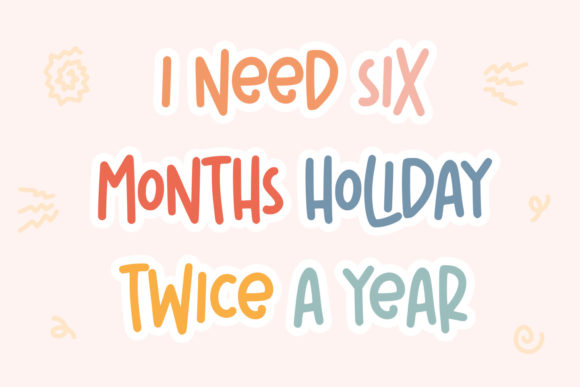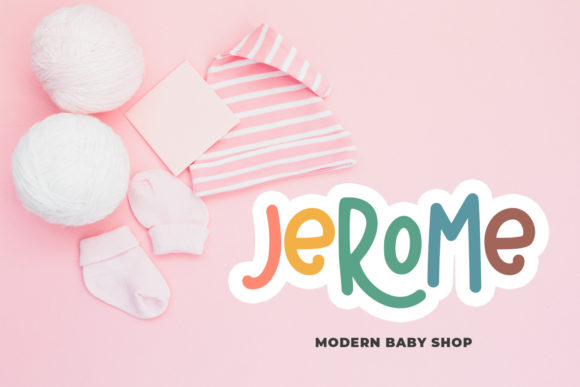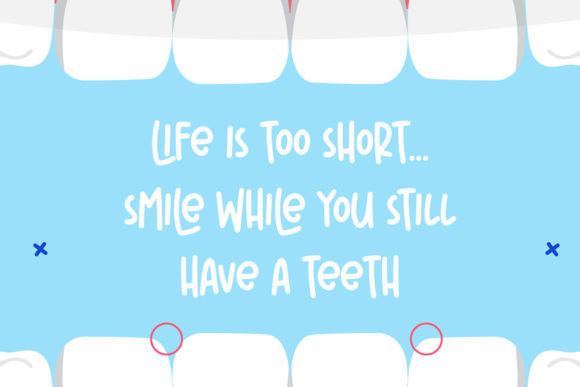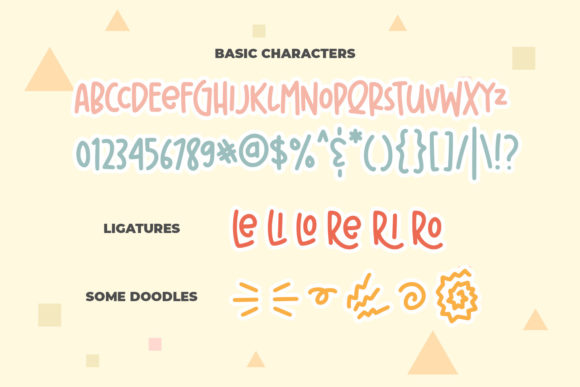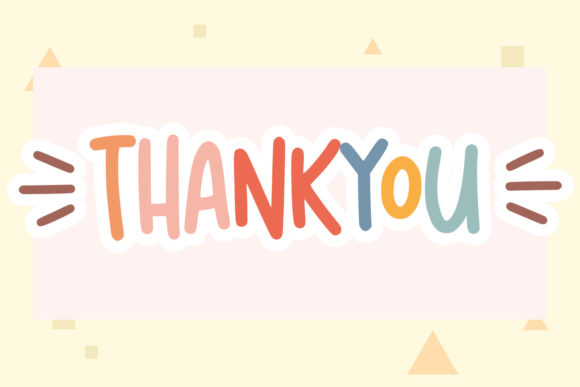
Do you remember the moment when you stumbled upon the perfect font to match your latest design idea? It’s that ‘aha’ moment when everything falls into place, and your creativity soars. For designers, finding the right font can make all the difference between a good design and a great one. And that’s exactly what the Brownist Font is designed to do – add a touch of whimsy and charm to your projects.
Brownist Font is a delightful, cheerful font that’s perfect for a wide range of applications, from t-shirt designs and quotes to mugs, tote bags, and social media graphics. Its versatility and playfulness make it an invaluable asset for designers looking to add a personal touch to their craft projects. Whether you’re a seasoned pro or a beginner, the Brownist Font is sure to bring a smile to your face and inspire your next creative masterpiece.
Brownist Font Key Features
- Unique Characteristics: The Brownist Font features a unique, hand-drawn design with subtle imperfections, giving it a natural, organic feel.
Brownist Font Review
As a designer, I was excited to dive into the world of Brownist Font. At first glance, I was immediately drawn to its unique and stylish aesthetic. ✨ The font’s warm, earthy tones and organic feel make it perfect for creating a cozy and inviting atmosphere in any design project.
Here are some of the things that I think really work well in Brownist Font:
- ✨ Unique character set: Brownist Font offers a wide range of characters that add to its personality and charm.
- ✨ Versatility: Whether you’re designing a logo, a website, or a brochure, Brownist Font can adapt to any style or theme.
- ✨ Professional quality: The font is well-crafted and polished, making it perfect for any level of designer.
- ⚠️ Limited language support: Brownist Font is not ideal for multilingual designs, as it only supports a limited number of languages.
- ⚠️ Not ideal for small text sizes: The font’s unique style can sometimes make it difficult to read at smaller text sizes.
Overall, I think Brownist Font is a great addition to any designer’s toolkit. While it may have some limitations, its unique style and versatility make it a standout choice for any project that requires a touch of warmth and personality.
Brownist Font: A Practical Application Guide
Use Brownist Font for designs that require a vintage or distressed look. It’s perfect for creating eye-catching headings, titles, and quotes. To get the most out of Brownist Font, experiment with different font sizes, colors, and combinations with other fonts.